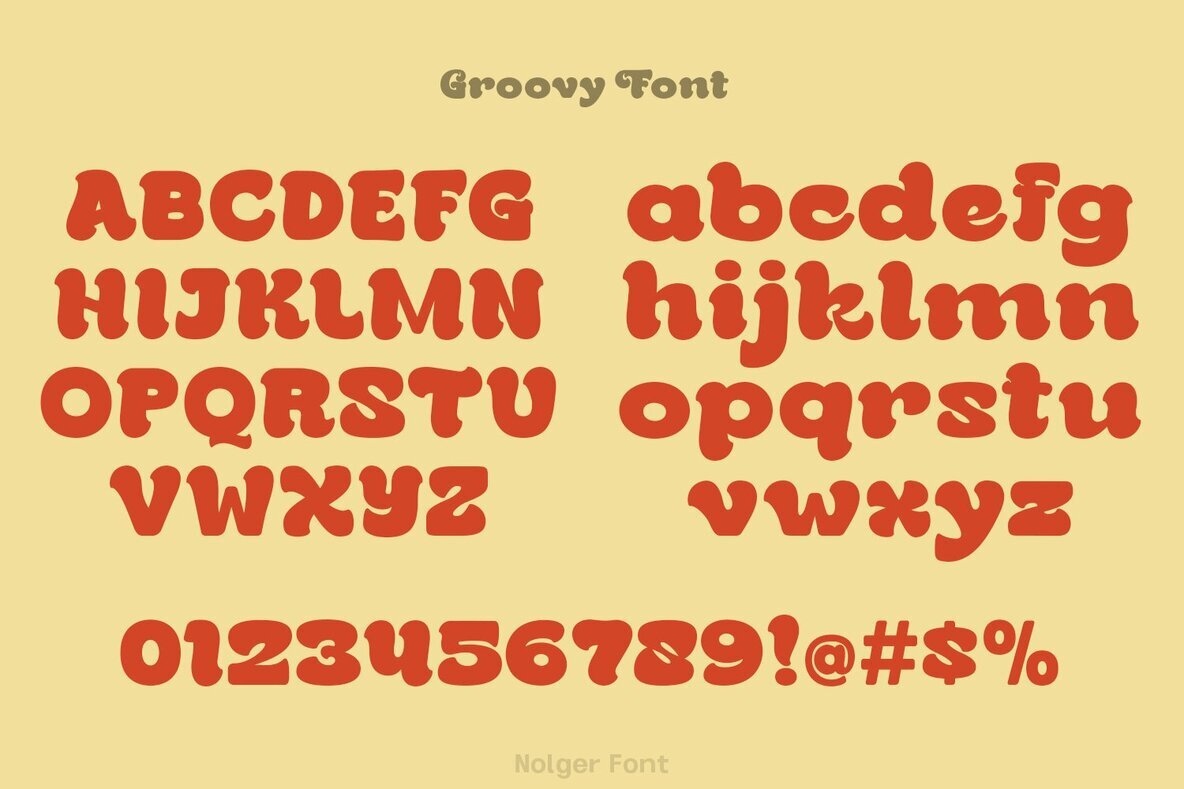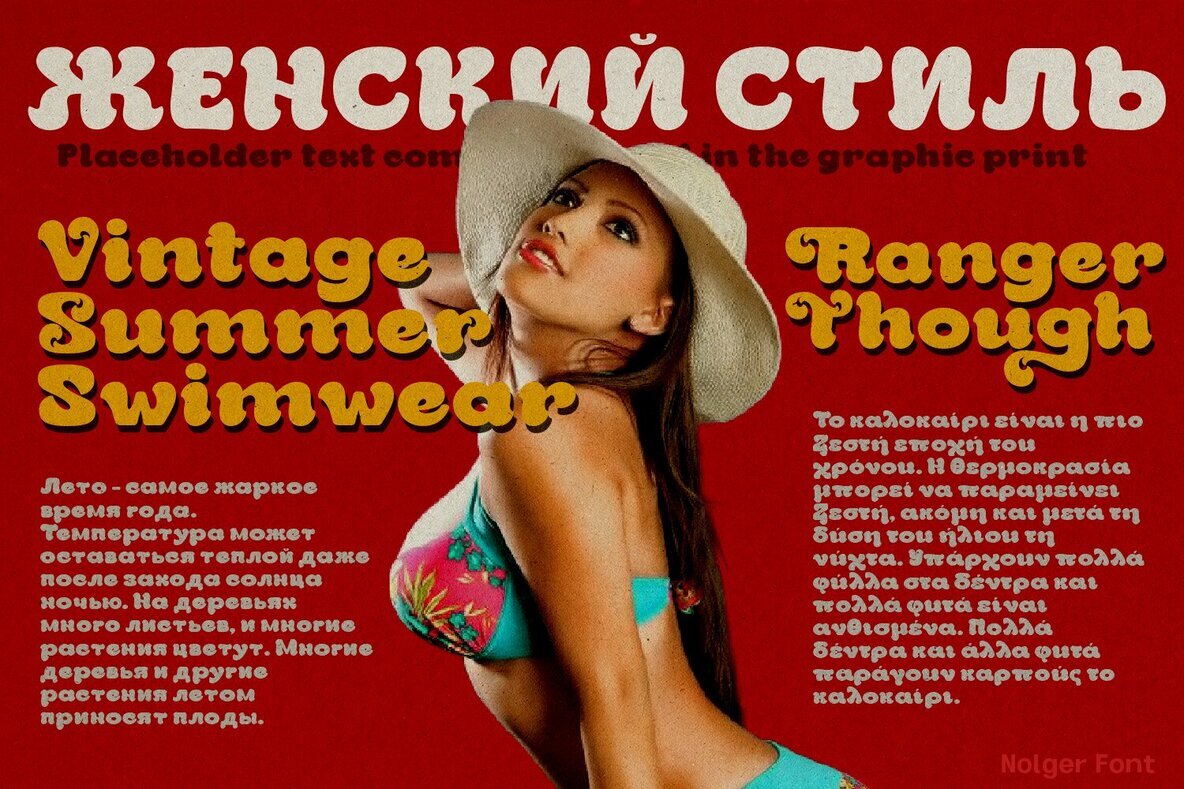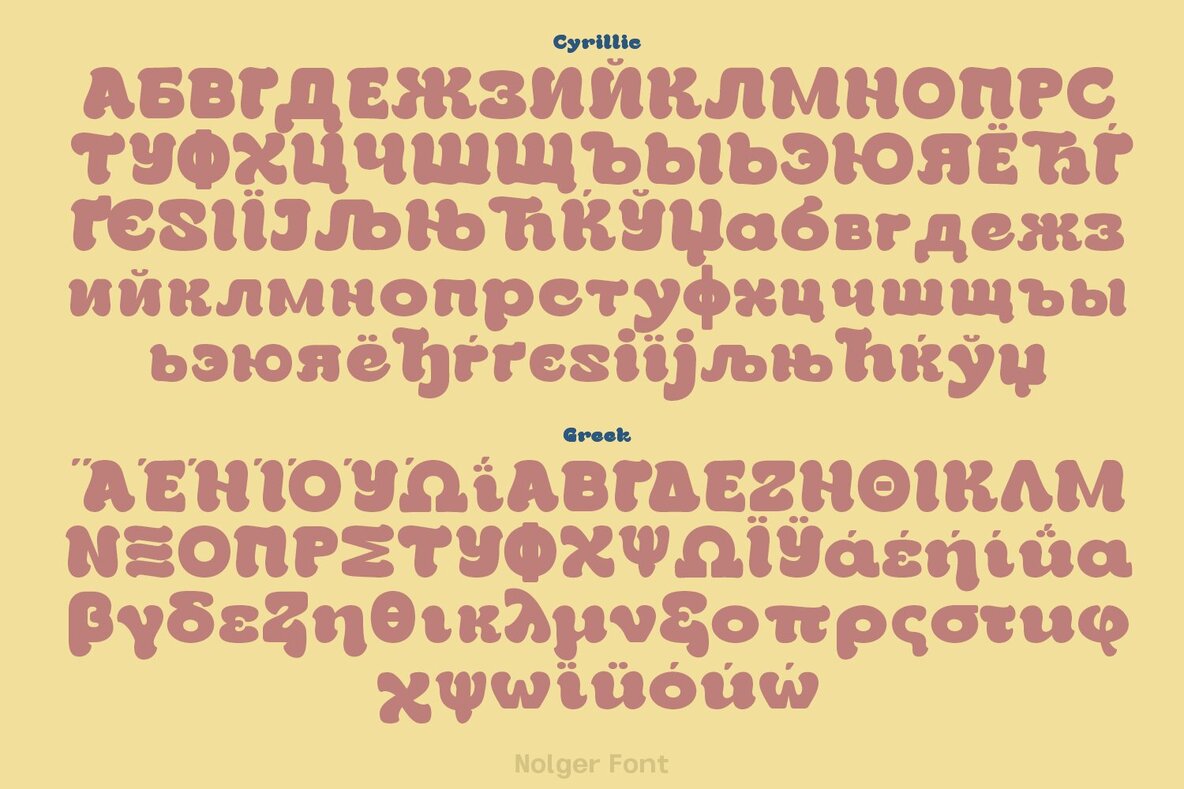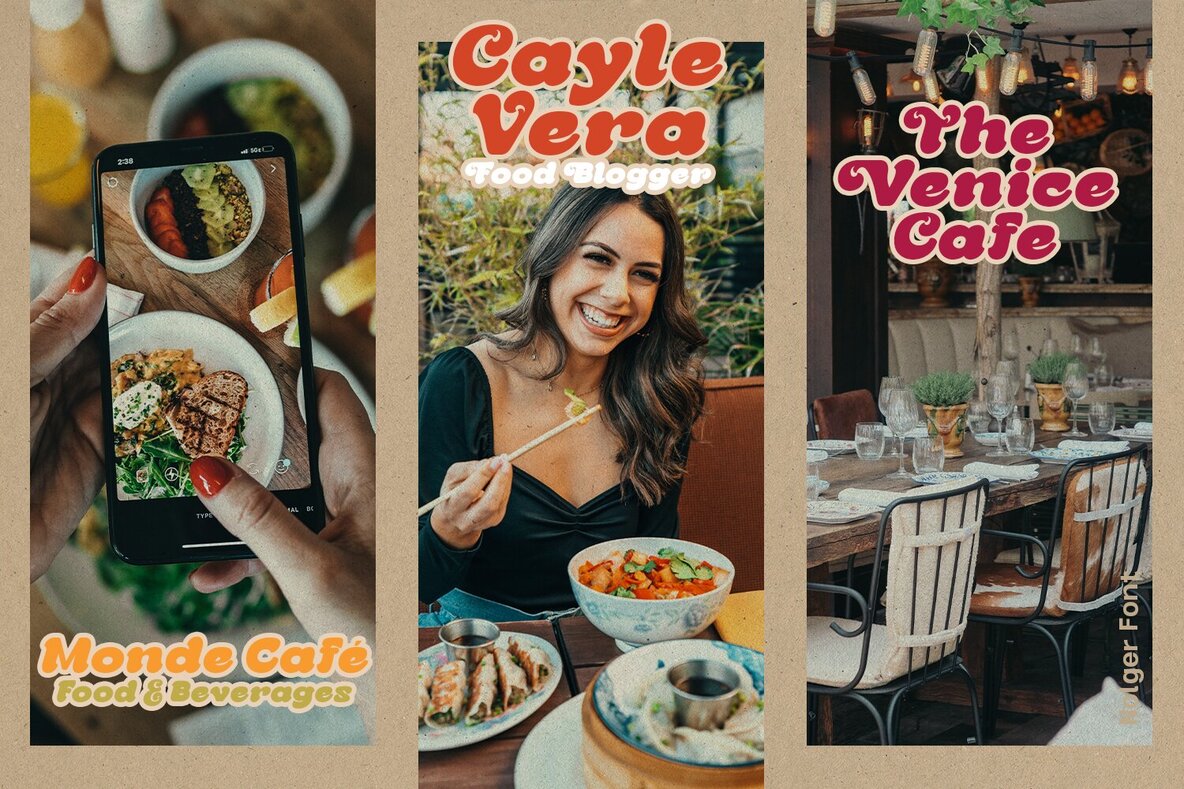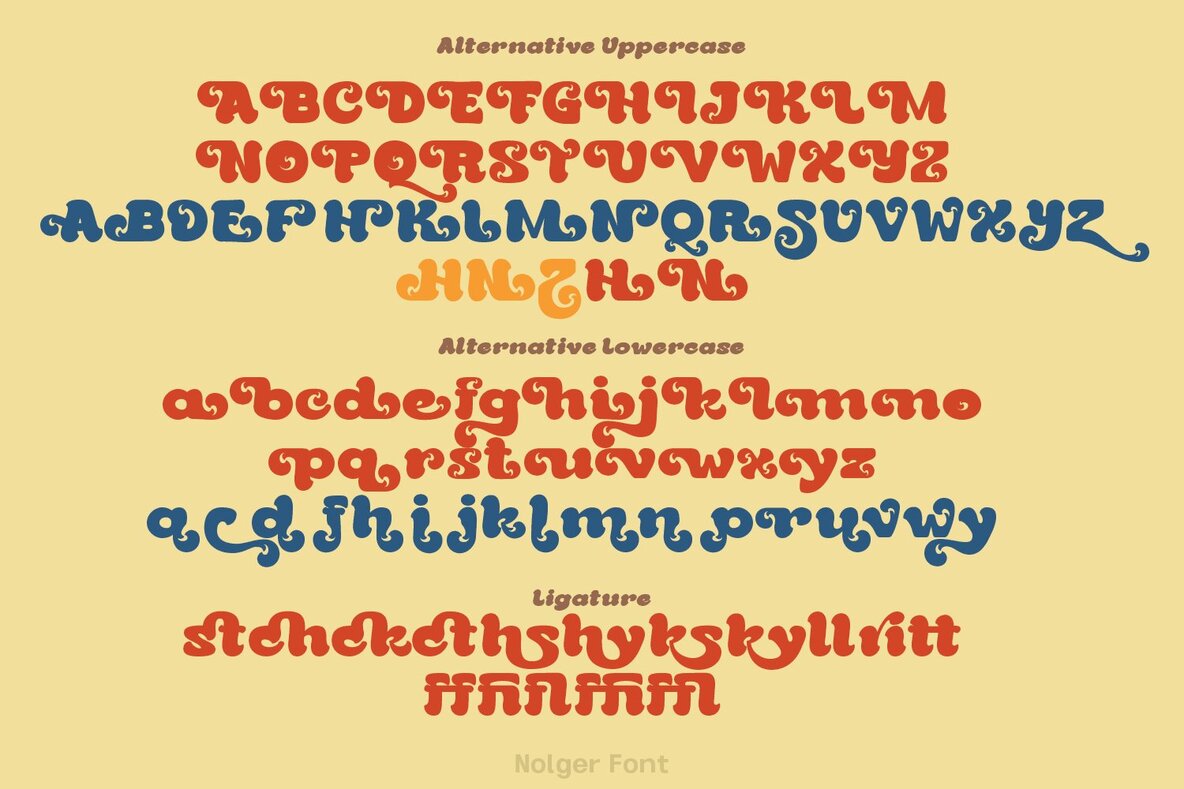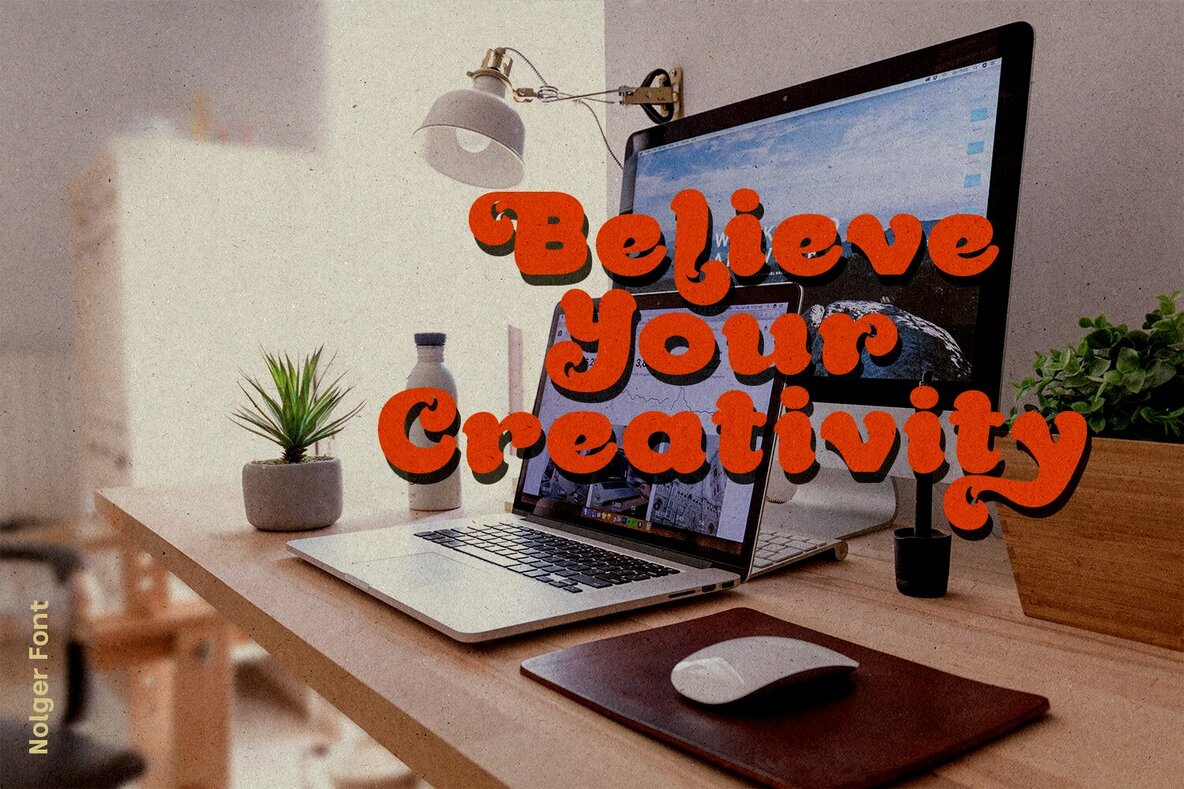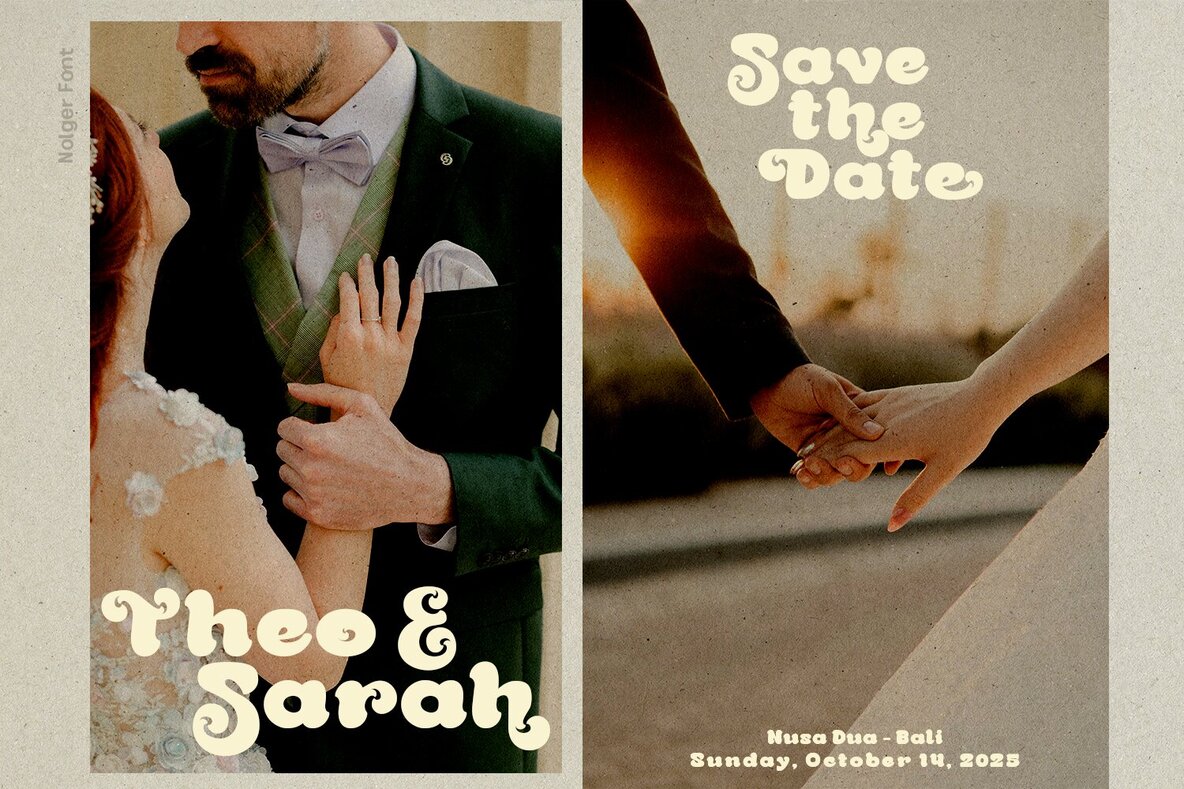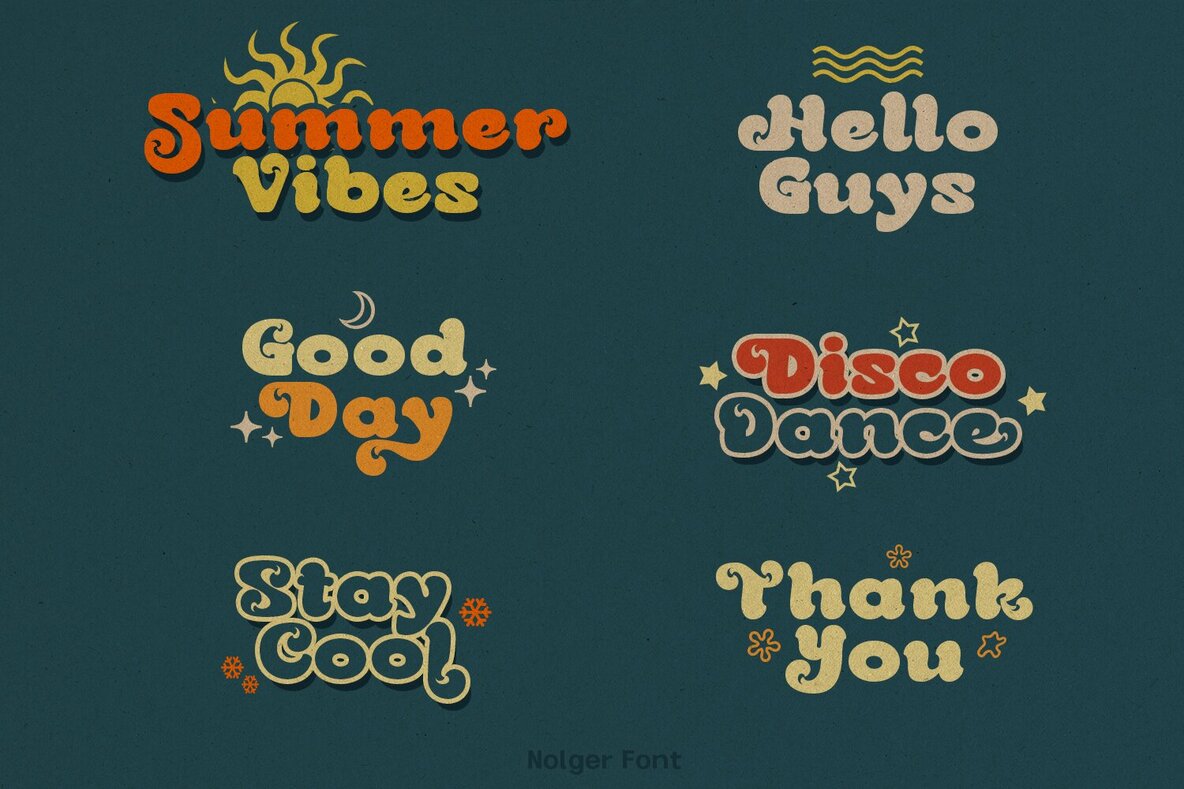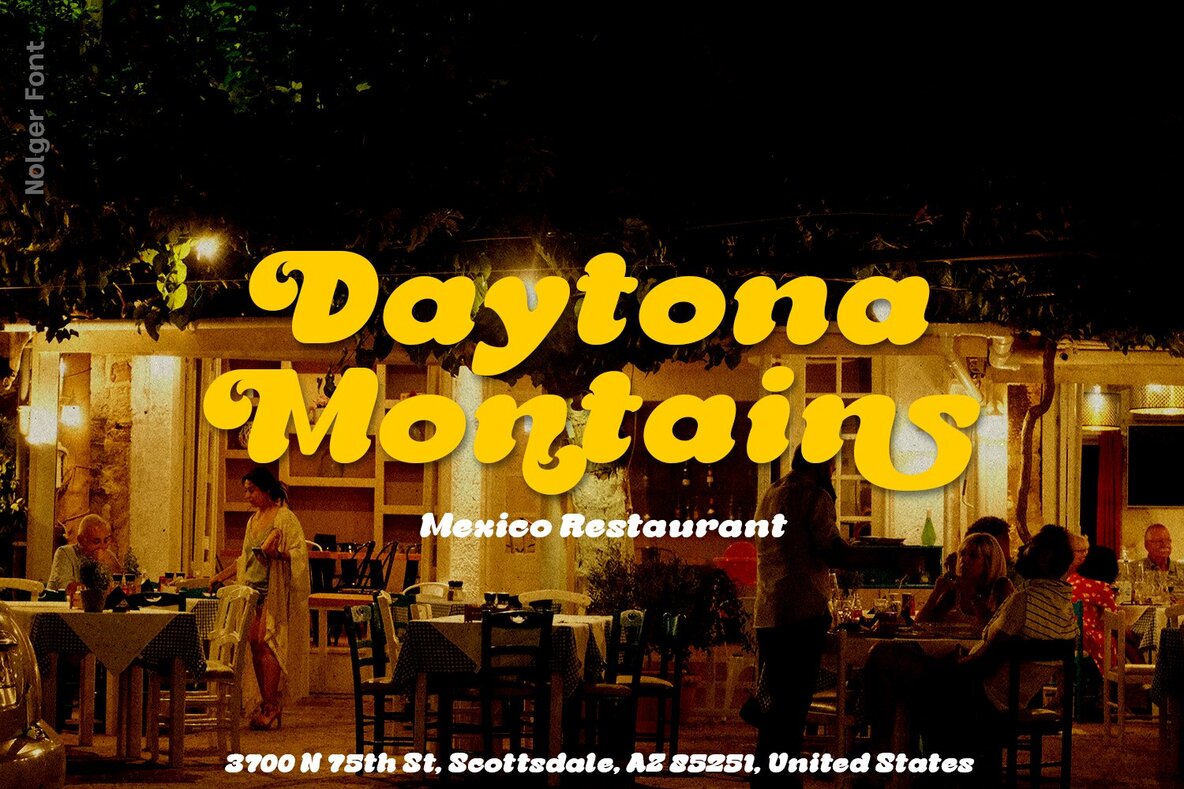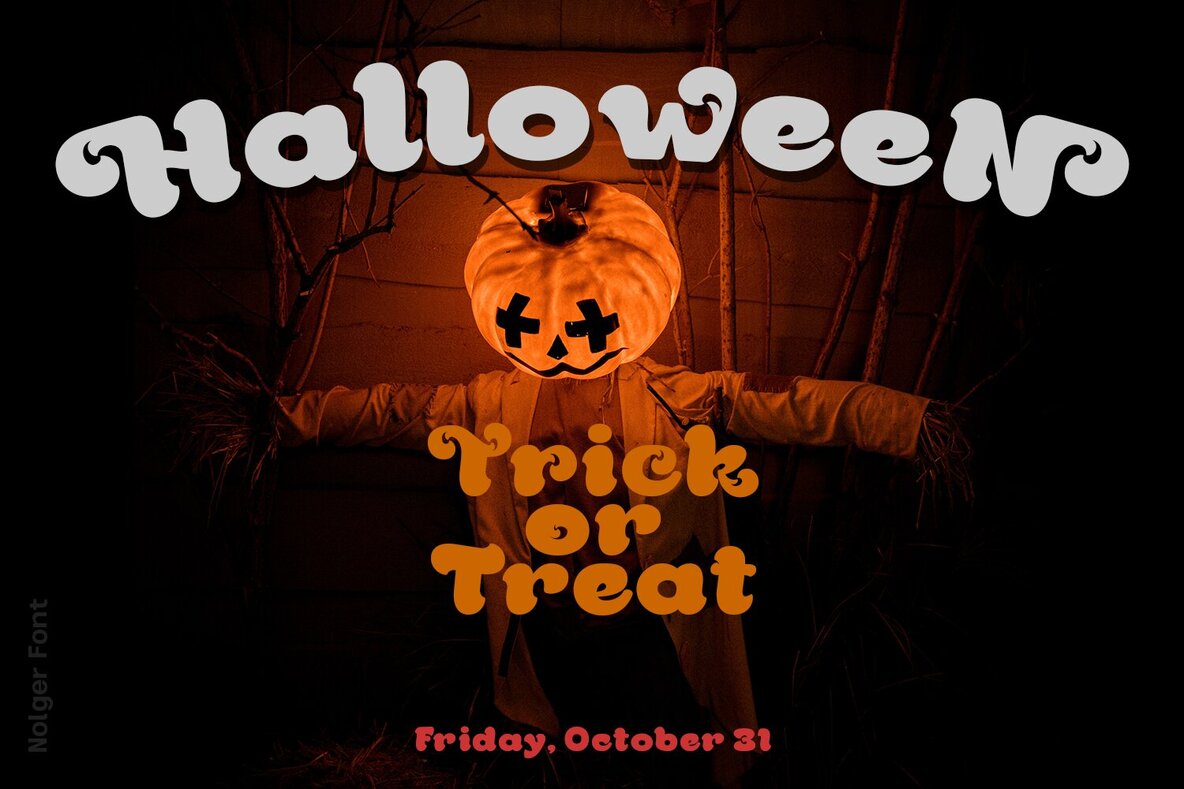
Nolger Font
Nolger Regular
Nolger is a groovy font come with 90's groovy style serif. Groovy and refined you can explore and combine creating rhythm for comfortable reading. This font supports more than 100 Latin-based languages and has extensive Cyrillic and Greek support for languages like Russian, Bulgarian, Ukrainian, and many more.